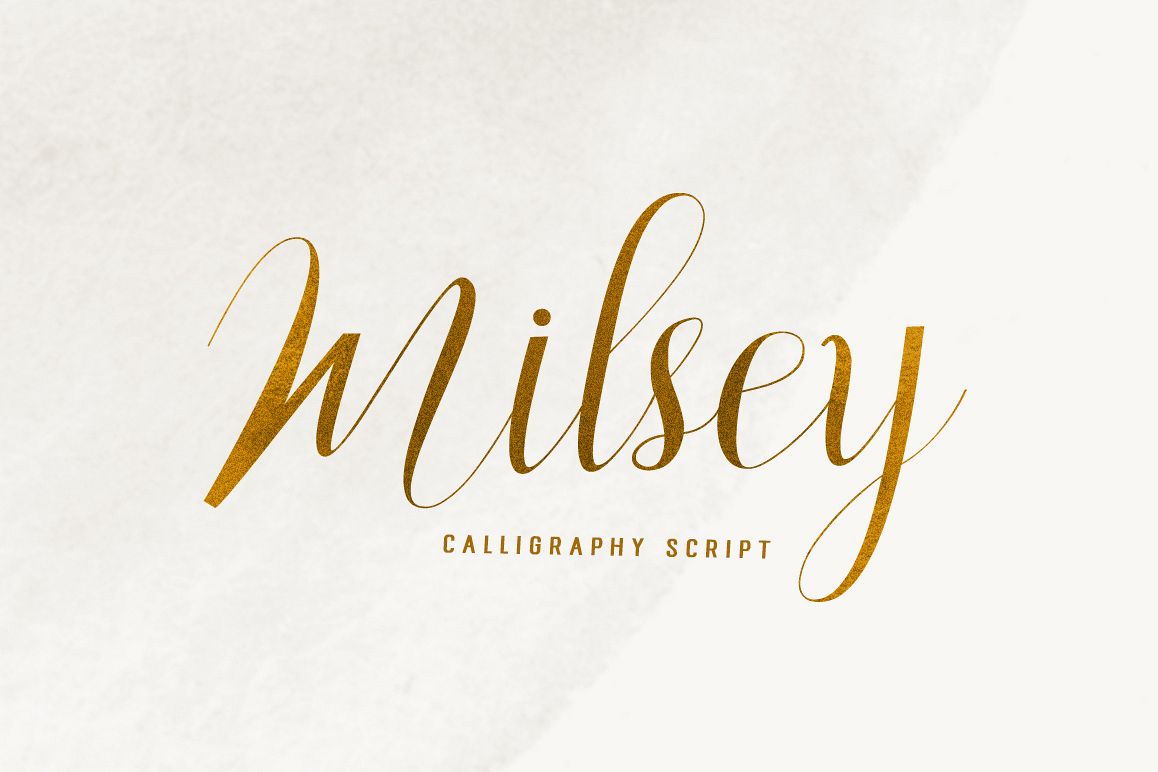
Milsey Script is modern script font, every single letters have been carefully crafted to make your text looks beautiful. With modern script style this font will perfect for many different project ex: quotes, blog header, poster, wedding, branding, logo, fashion, apparel, letter, invitation, stationery, etc.Milsey Script including alternate glyph and beautiful swirl.How to access alternate glyphs:Windows Character Map: https://www.youtube.com/watch?v=BScPsiubM1kAdobe Illustrator: https://www.youtube.com/watch?v=y5XTaWYwWA4FEATURES: